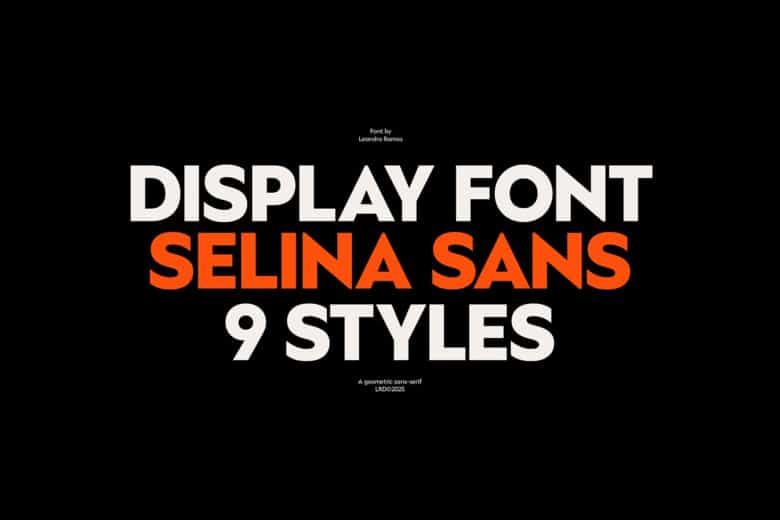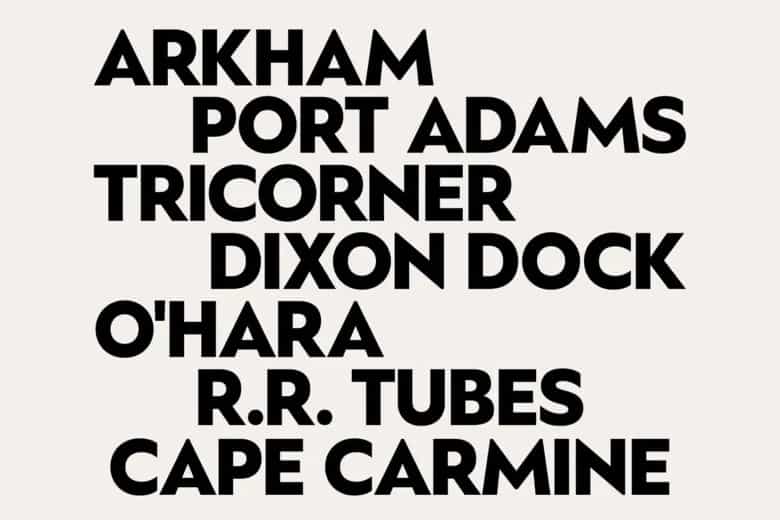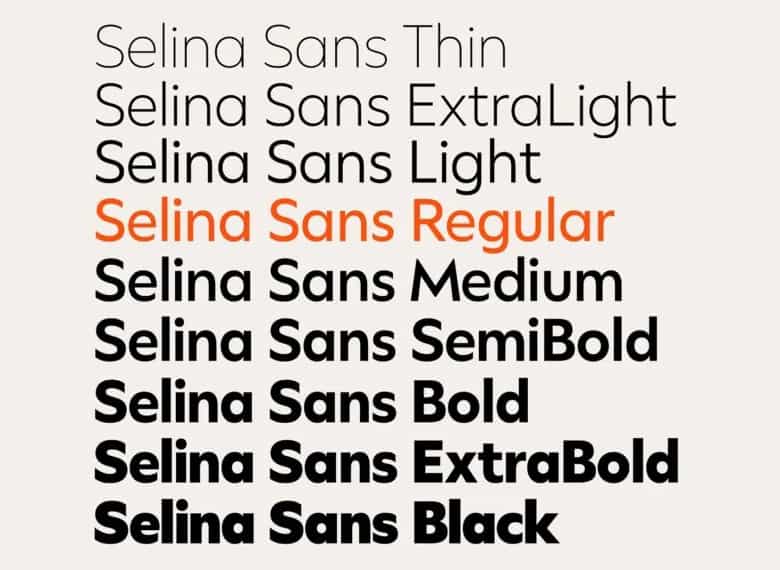
Selina Sans Font is a right fit for your modern design projects. It is balanced and technical, precise and expressive; designed for logos and striking headlines. It carries out curves and sharp terminals that depict elegance and a hint of attitude. From these factors, the overall impression is a typeface that is elegant but has fine disparities: clear, neat, and Class-C, but smooth and metallic at the same time.